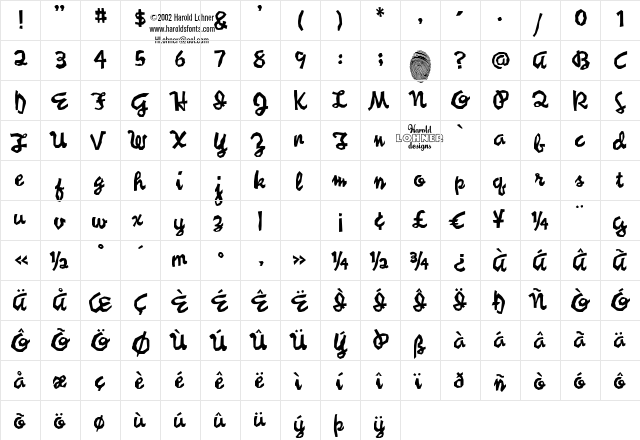
SyncopatedScript Regular Font Preview
SyncopatedScript Regular
SyncopatedScript Regular Font Details
Design Context for SyncopatedScript Typeface
SyncopatedScript brings a calligraphic fluidity to the page — its connecting strokes and expressive curves give it an unmistakably human quality.
Font Pairing: Combine SyncopatedScript with a simple geometric sans for maximum contrast — the tension between flowing curves and clean structure is a classic typographic pairing.
Pro Tip: Use SyncopatedScript for short runs of text — names, titles, or taglines. Extended body copy in script faces tires the eye quickly.